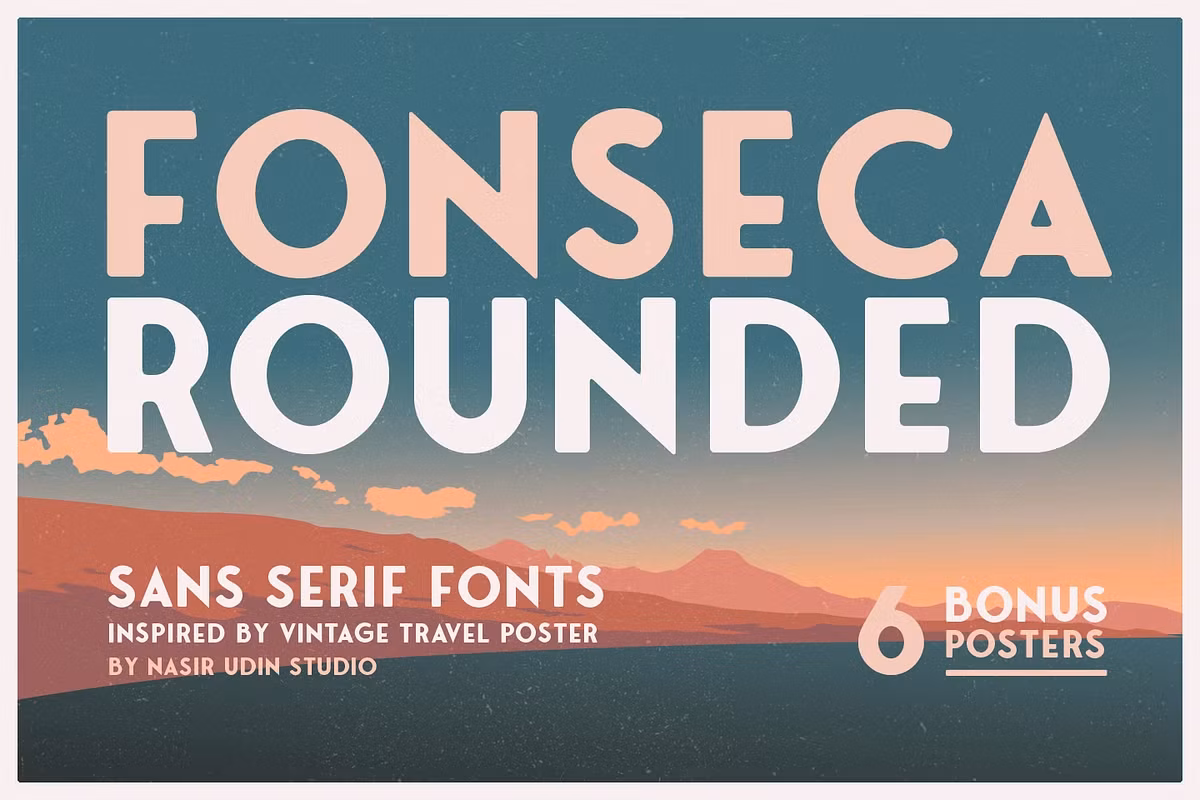
Fonseca Rounded + BONUS Retro Posters Free Download is a modern geometric sans serif font family with a smooth, rounded finish and a distinctly retro vibe. Inspired by classic art deco and mid-century design, Fonseca Rounded is perfect for posters, logos, headlines, branding, packaging, and editorial layouts that need a clean yet nostalgic touch.
With multiple weights and all-caps versatility, Fonseca Rounded Free Download offers bold impact with friendly curves, making it ideal for both print and digital designs. As a bonus, this bundle also includes beautifully designed retro posters to help kickstart your creative projects and showcase the font in action.